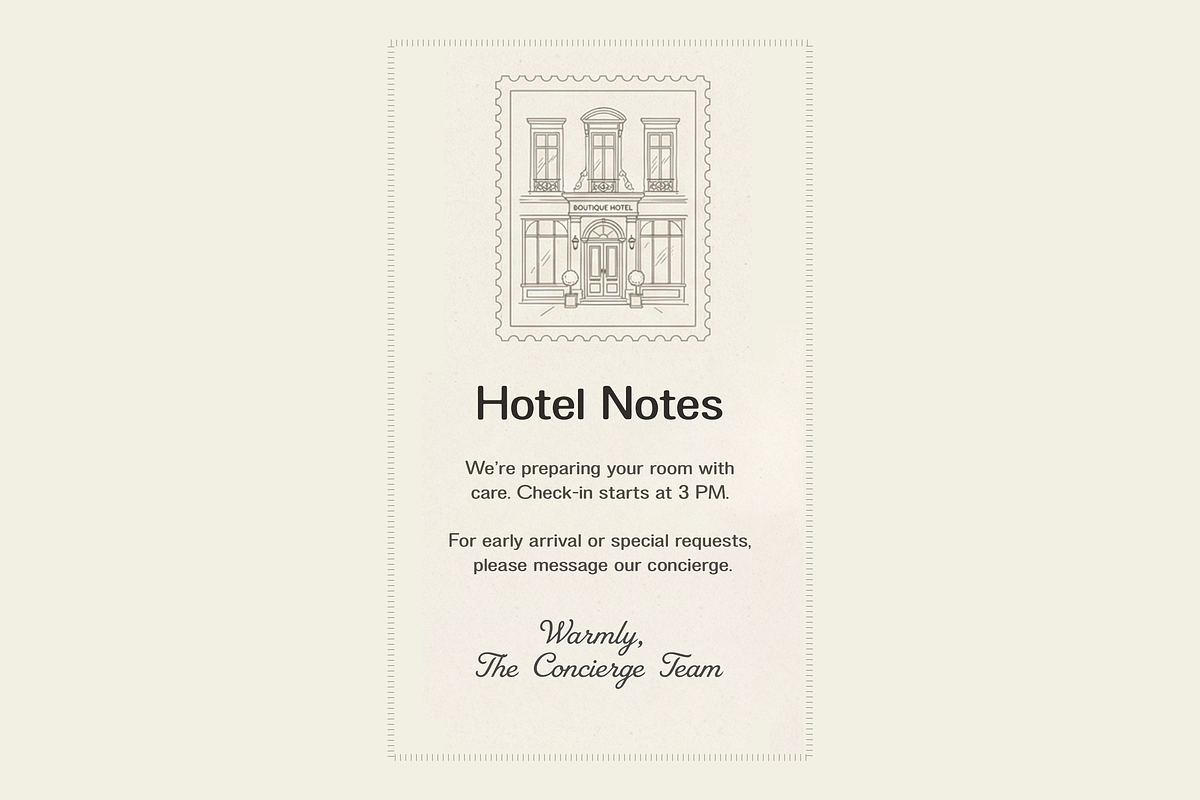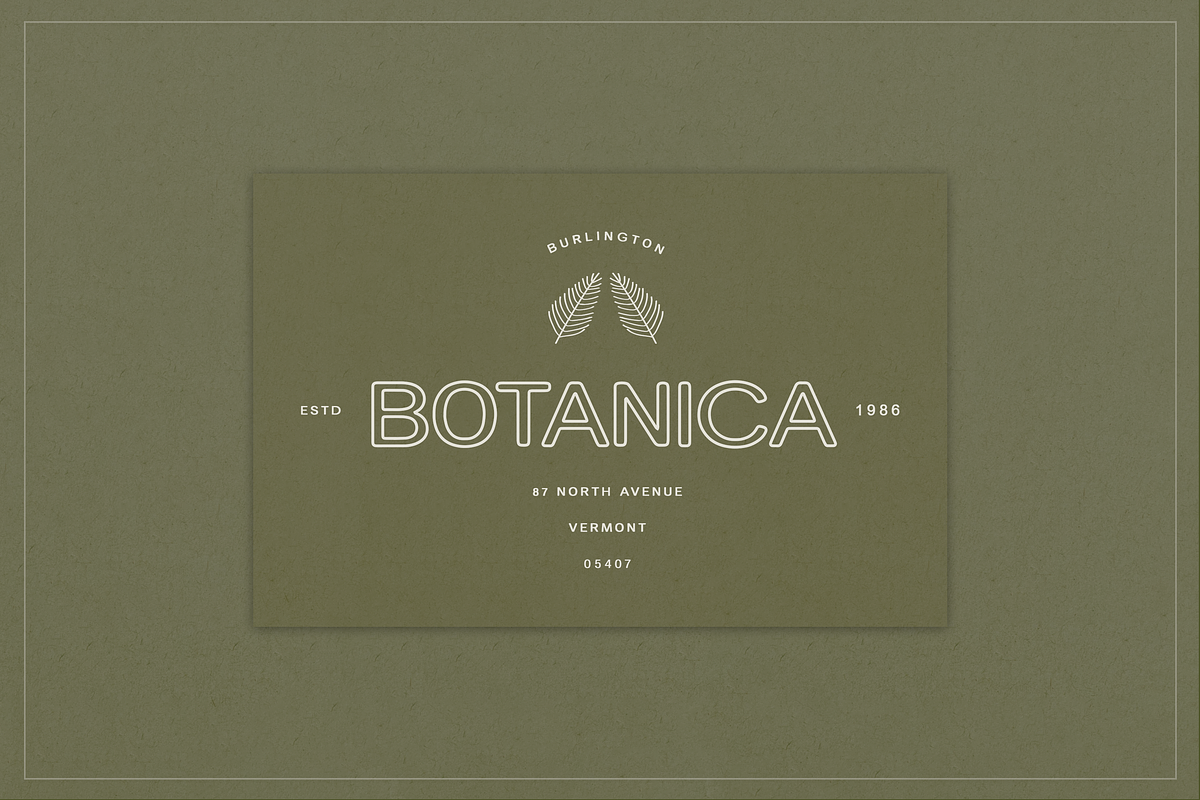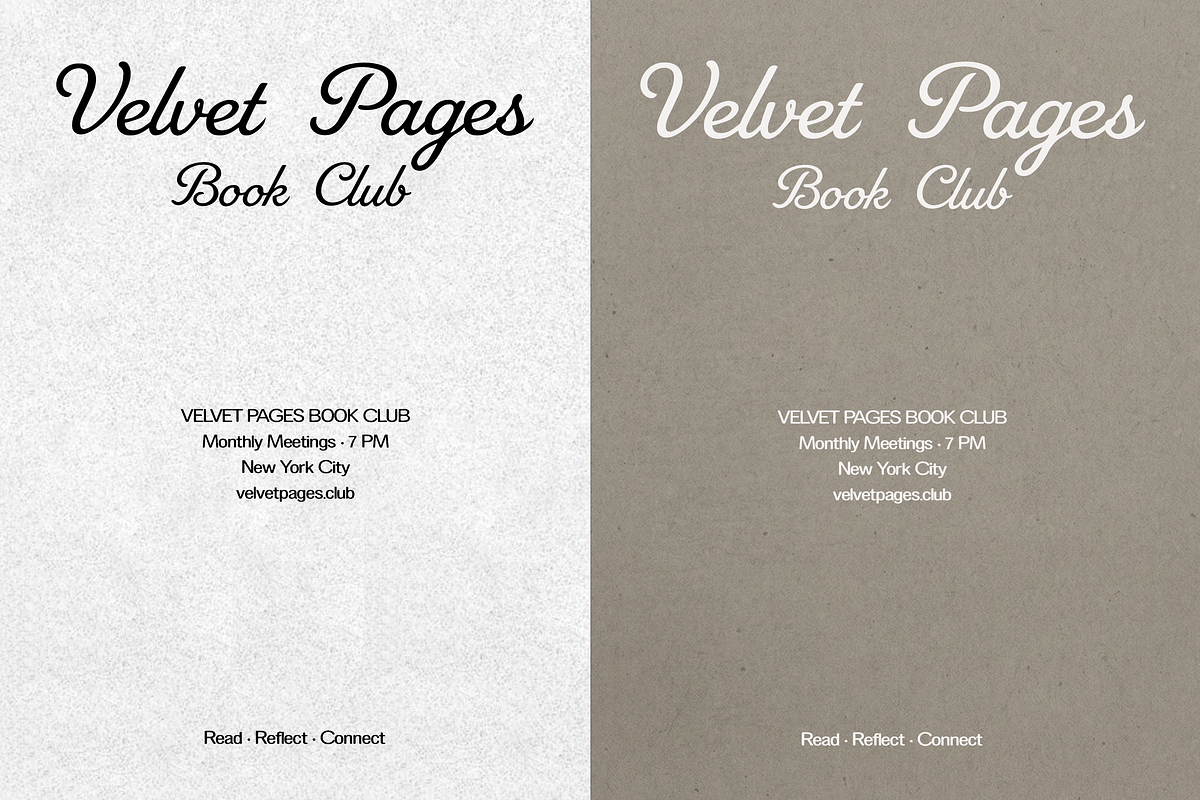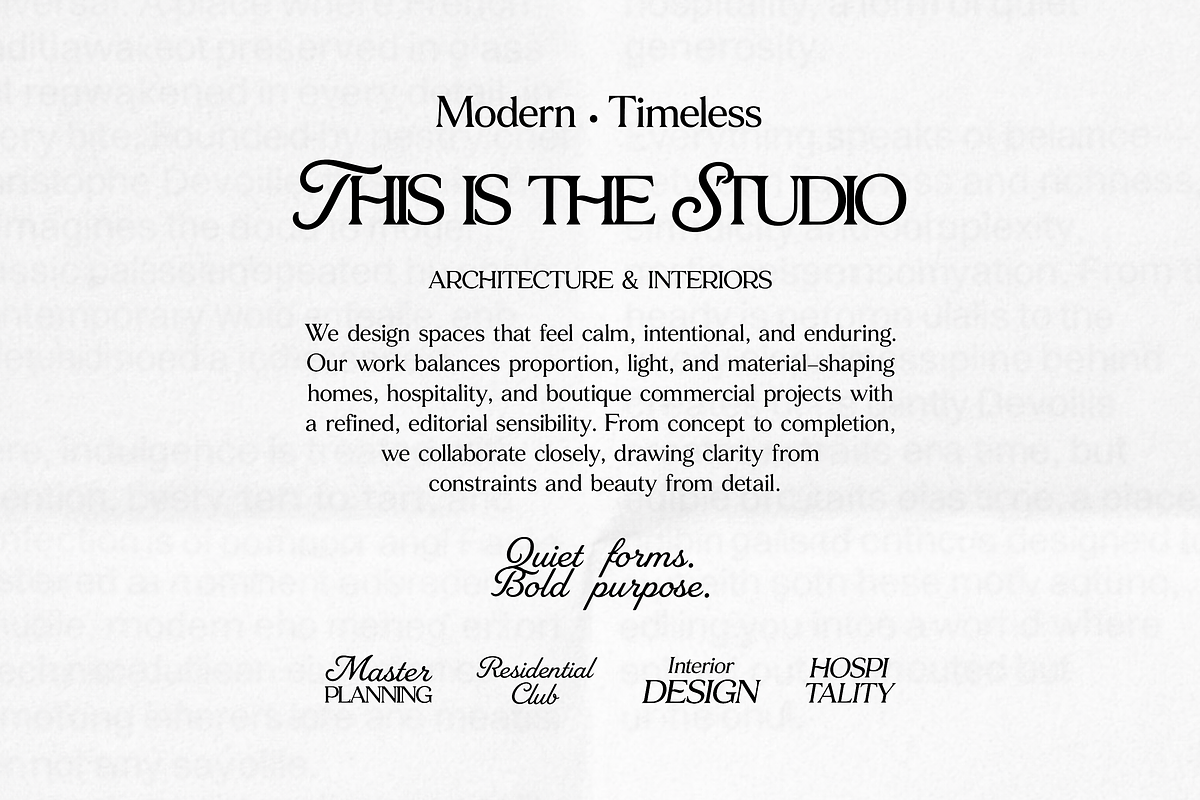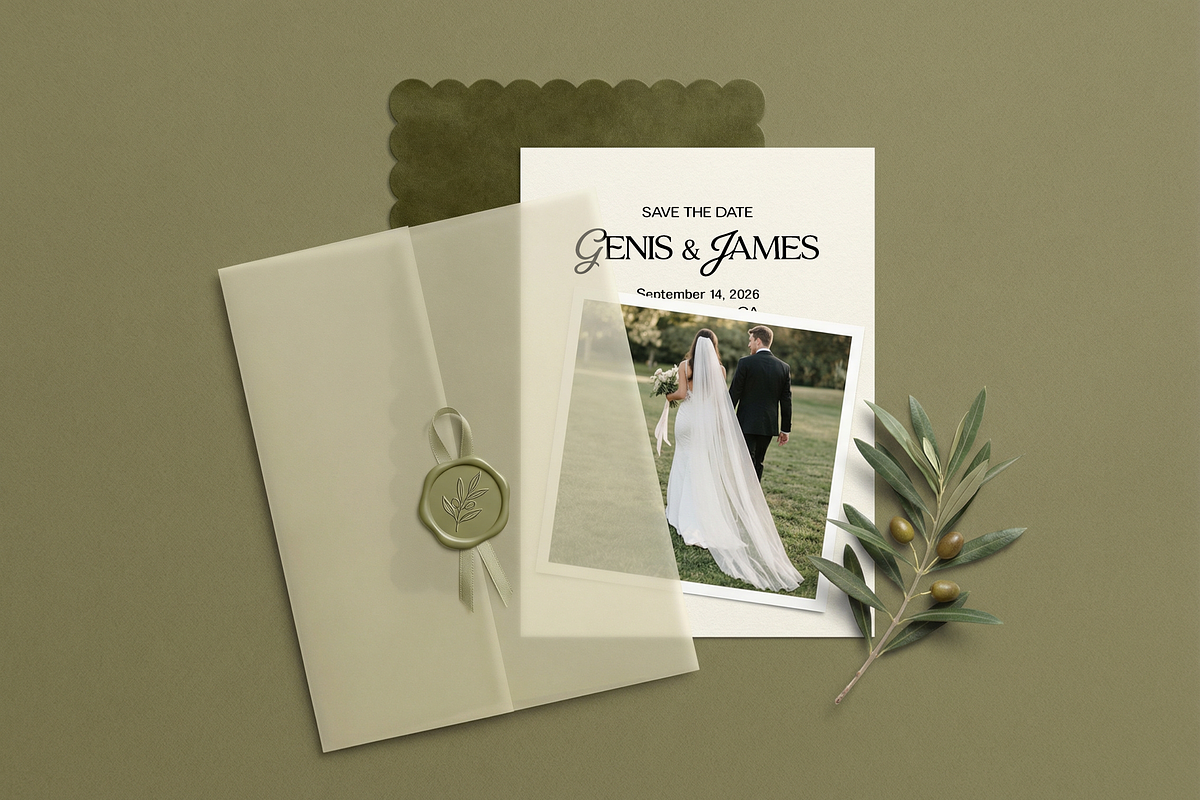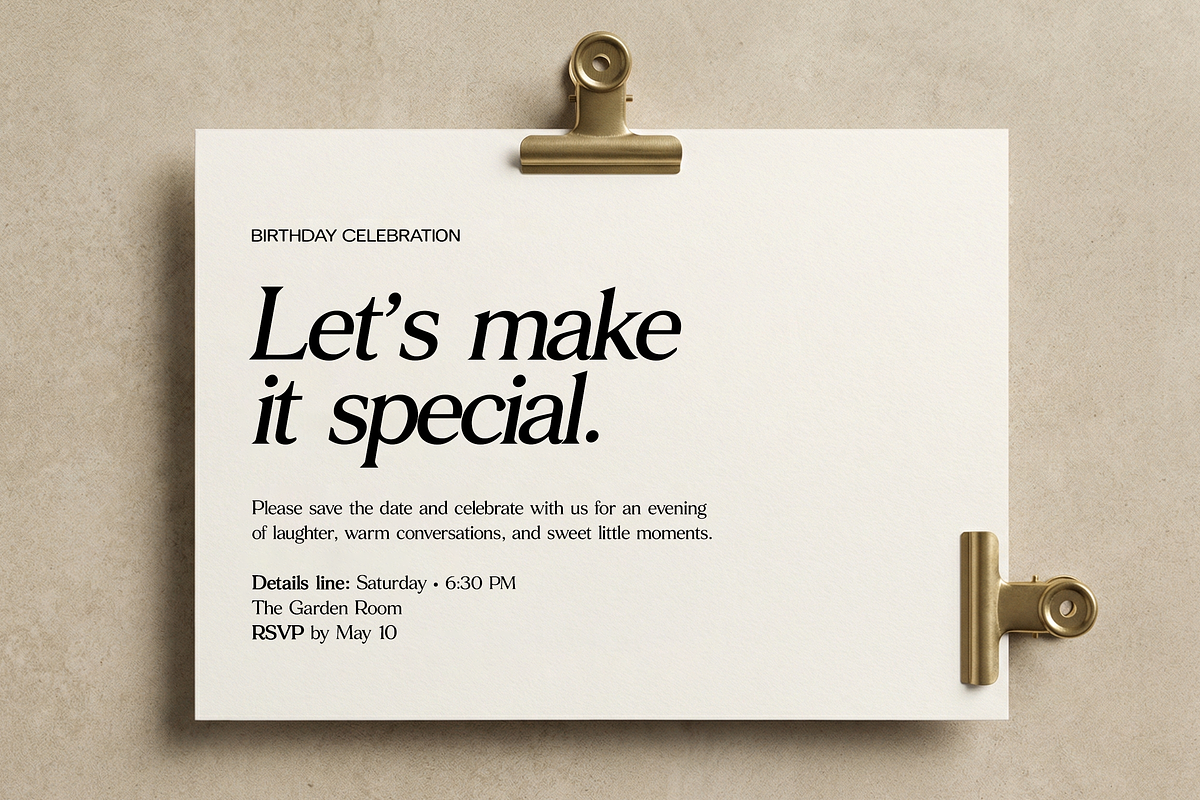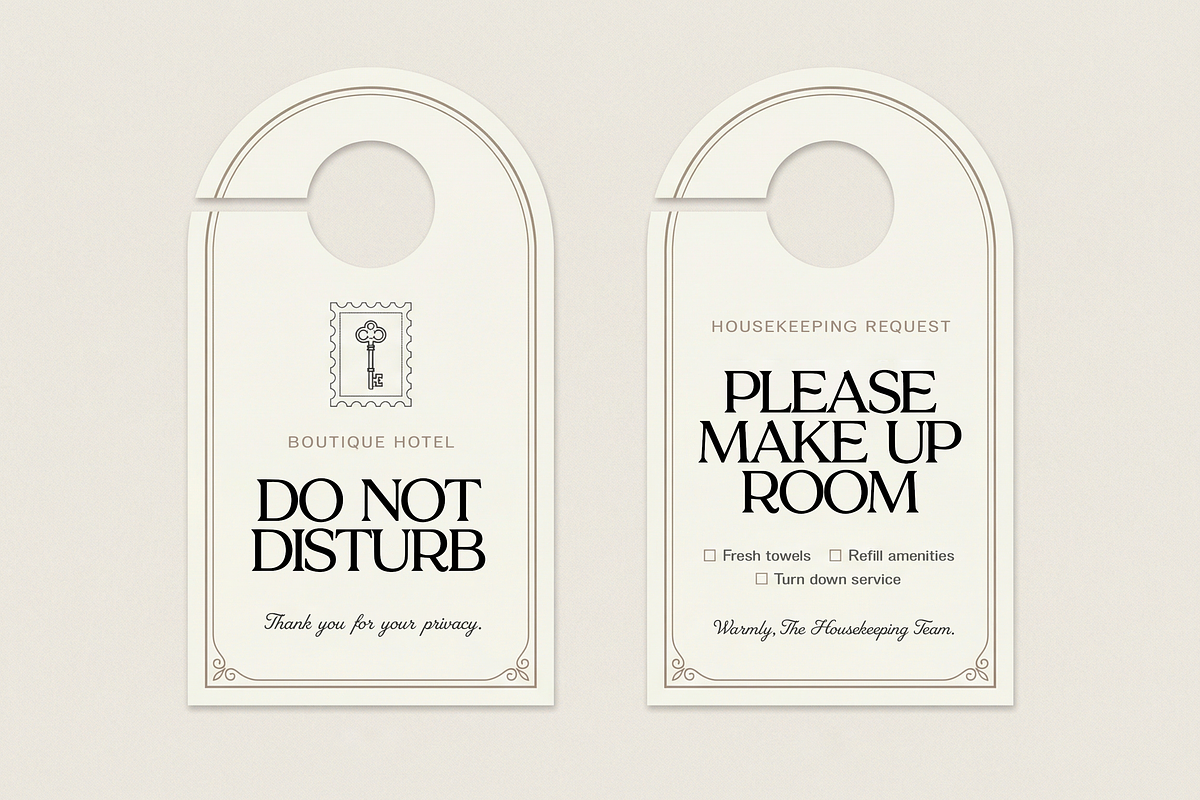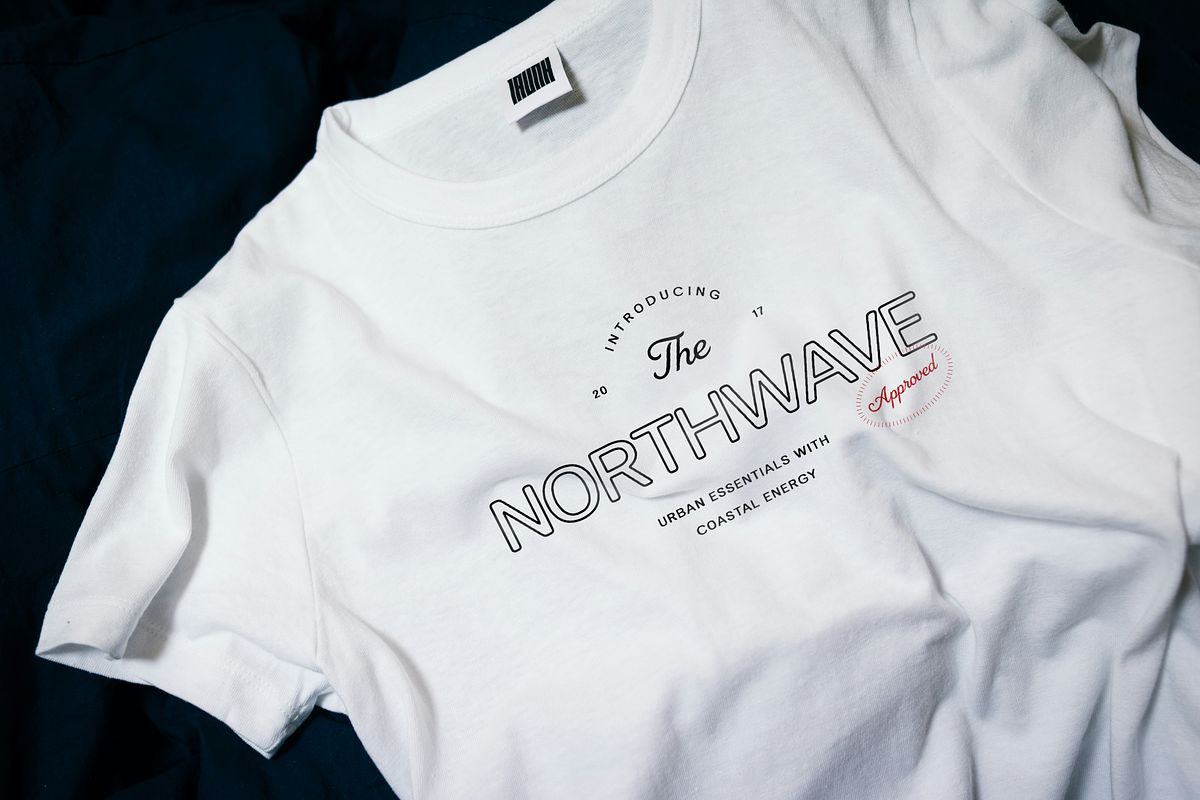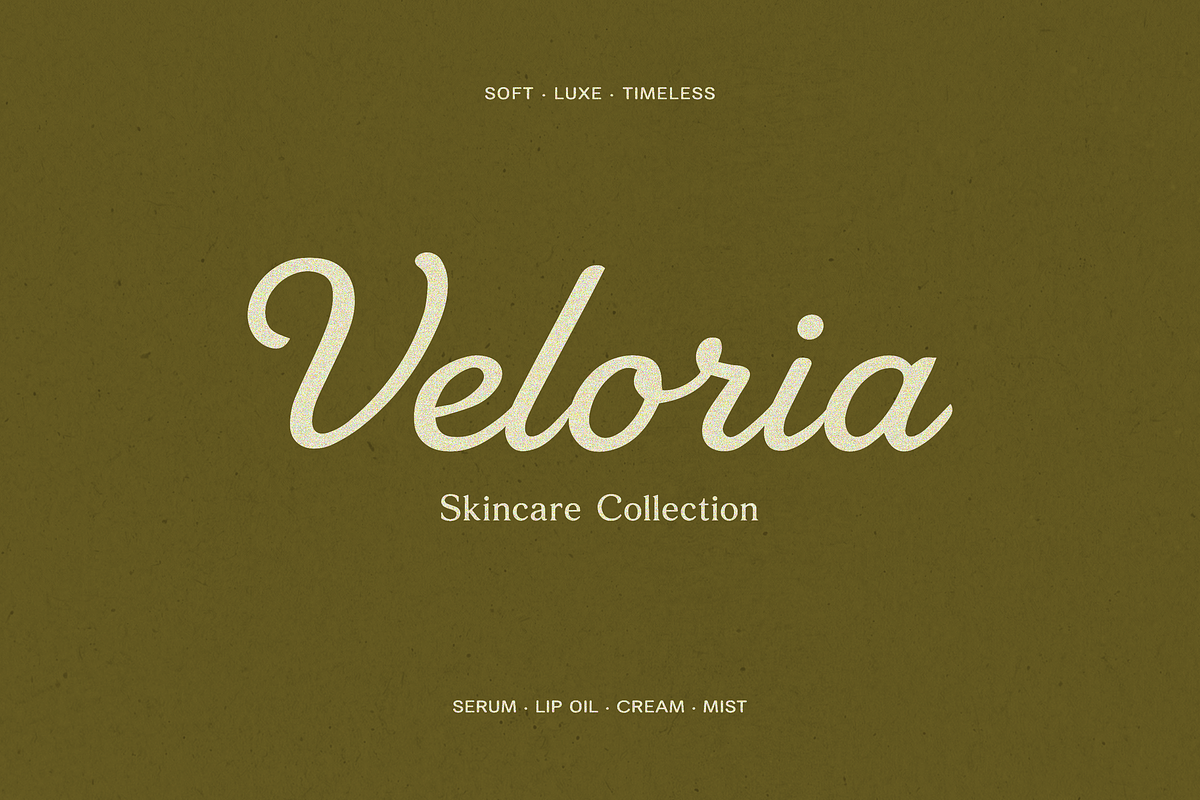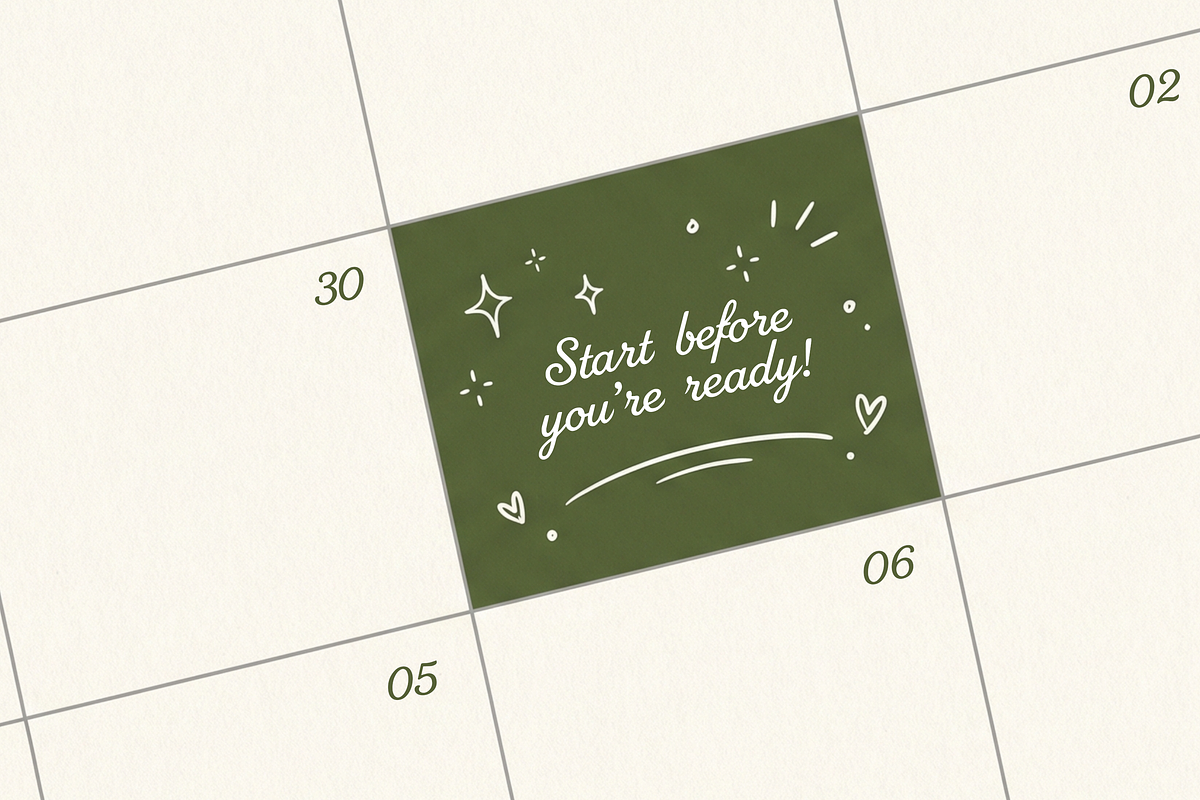
The Marquise Font Collection
The Marquise Font Collection is a refined 6-in-1 font family made for elegant branding and effortless mix-and-match typography. It blends a high-contrast Elegant Serif, a flowing Romantic Script, and a clean Simple Sans, with extra styles for impact: a Sleek Oblique, a Crisp Outline, and Chic Alternates for a distinctive, elevated look.
Designed to feel timeless and editorial—perfect when you want your text to look luxury, romantic, and modern all at once.
Perfect for
Logos & brand marks, wedding invitations, packaging, labels, social media graphics, lookbooks, magazines/editorial layouts, beauty & fashion branding, quotes, menus, and boutique business stationery.
Notes
For the smoothest handwriting look, turn ON Ligatures (especially for the script font). This will activate beautiful letter connections and a more natural flow.